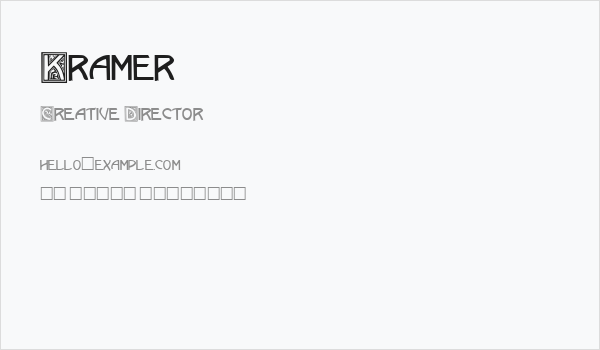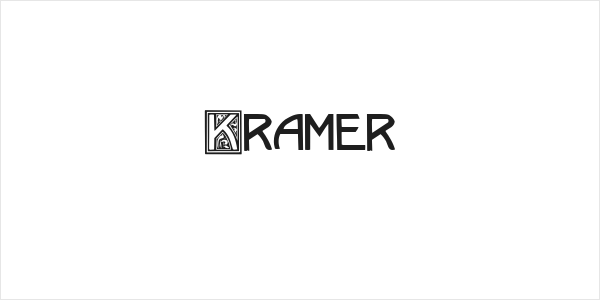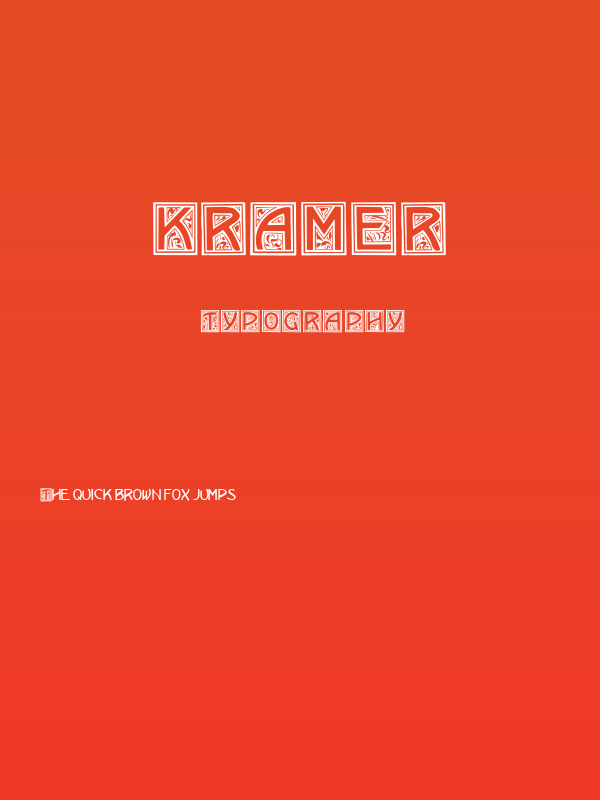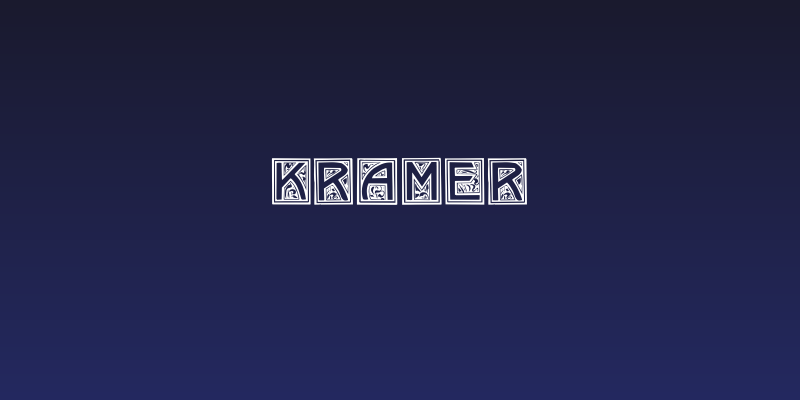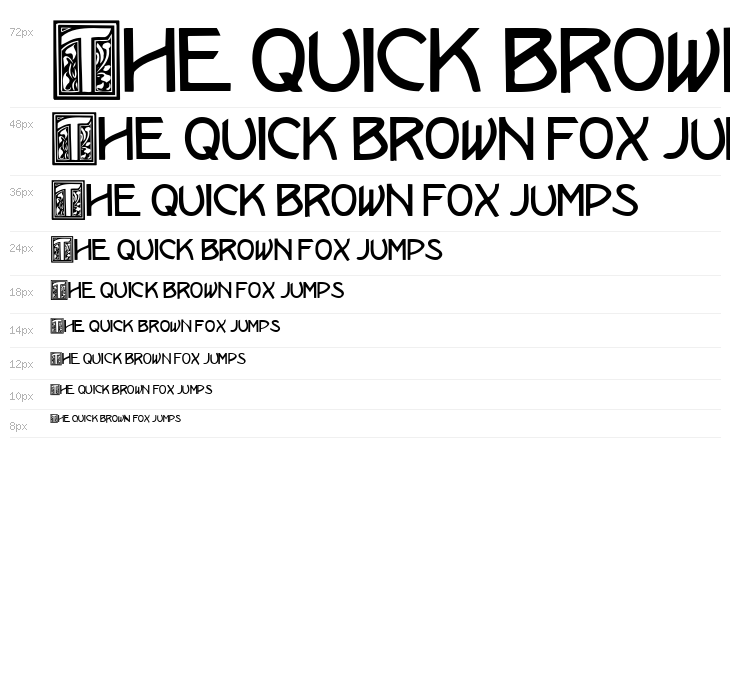
Kramer Font
Kramer Description
This font presents a unique blend of decorative and modern styles. The uppercase letters are enclosed in square frames with intricate, swirling patterns, giving them a distinct ornamental appearance. The lowercase letters and numbers are missing, which suggests this font might be used primarily for decorative purposes rather than body text. The bold strokes and high contrast between the thick and thin lines add to its striking visual appeal. The overall design is both artistic and structured, making it suitable for projects that require a touch of elegance and creativity.
| Proposed Projects | Ideal for artistic projects, invitations, posters, and branding that require a decorative touch. |